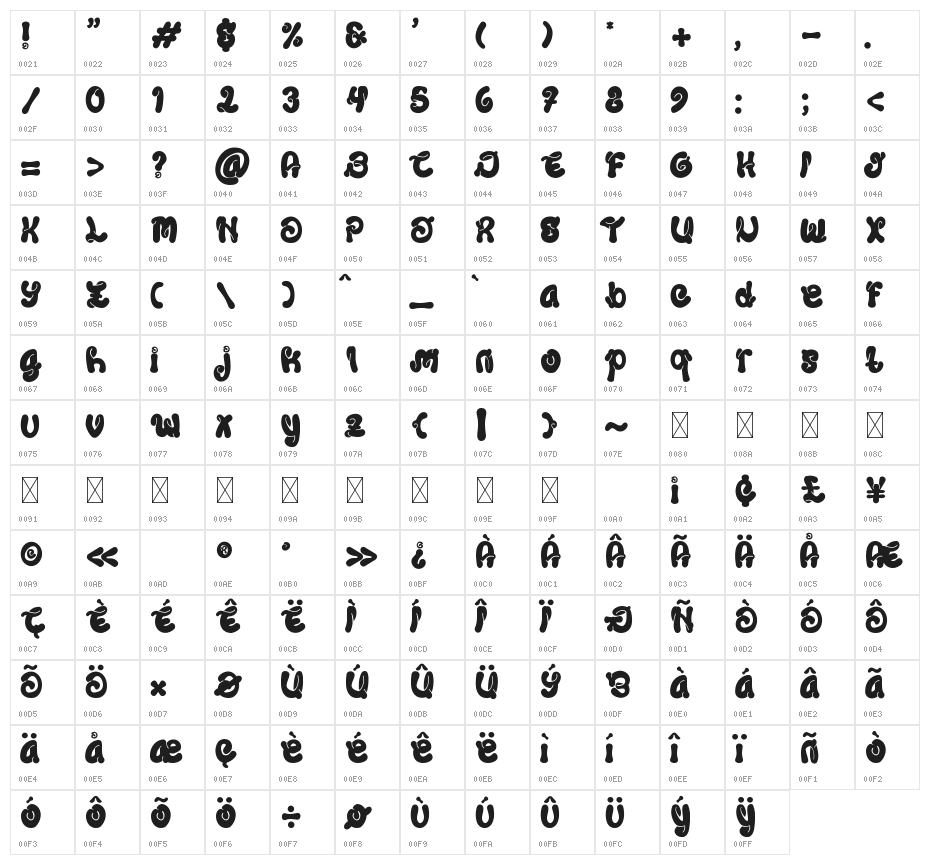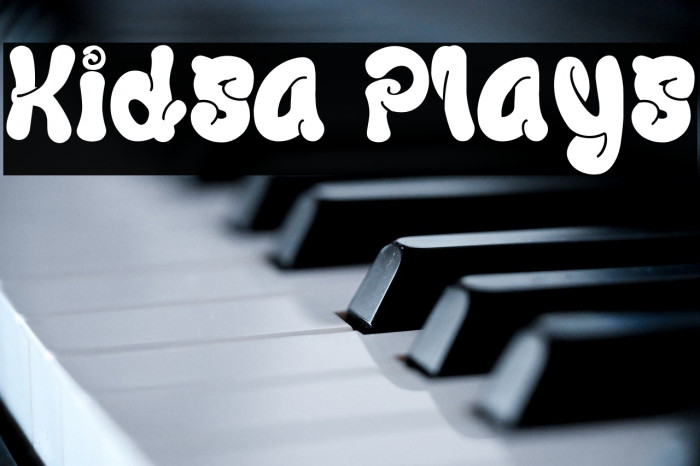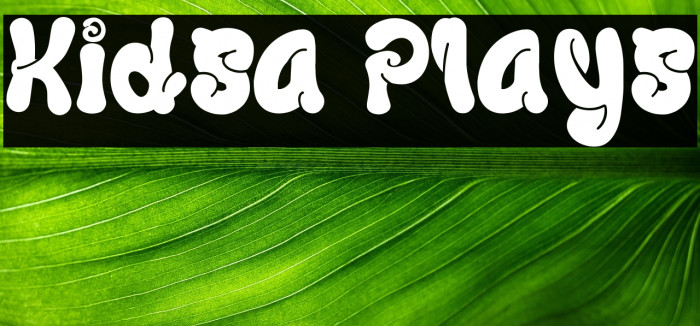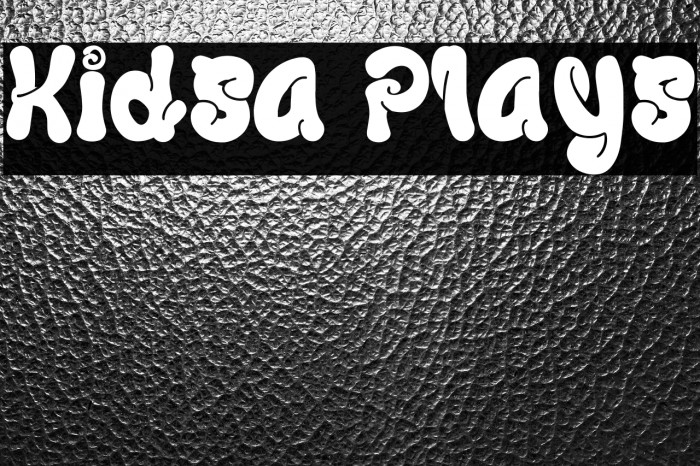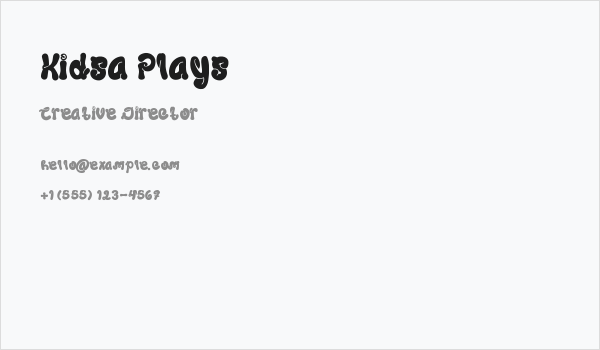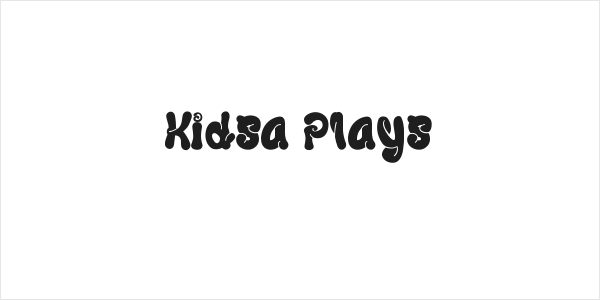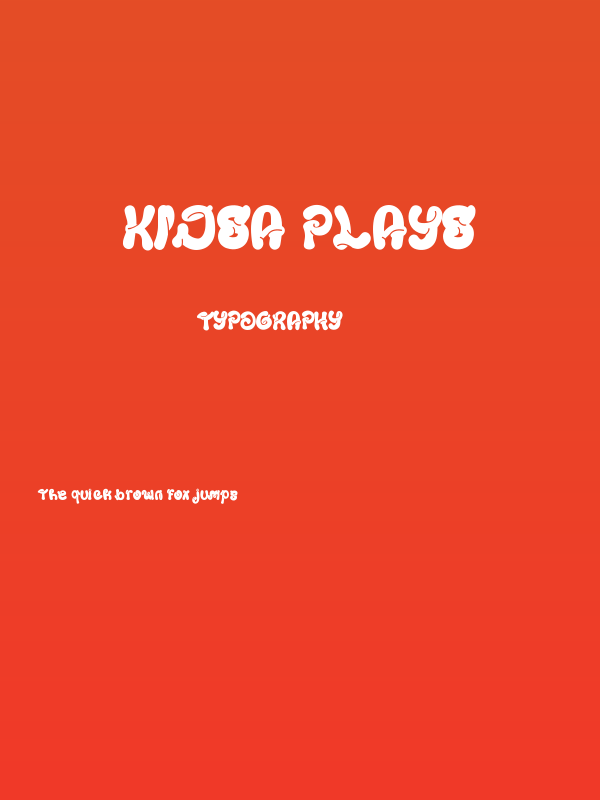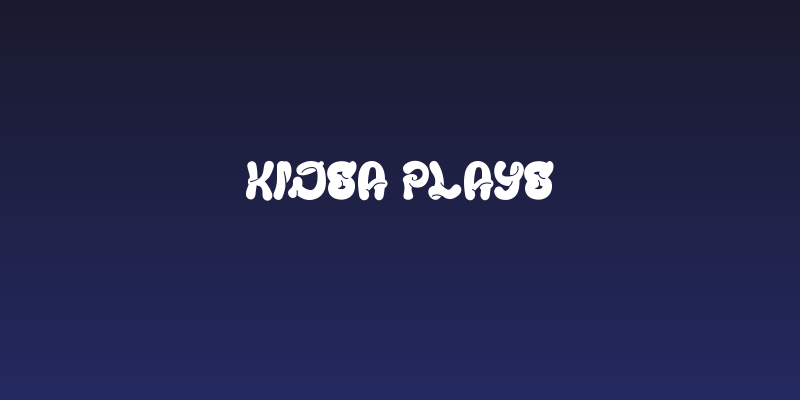
Kidsa Plays Font
Kidsa Plays Description
This playful and whimsical font features bold, rounded characters with a bubbly appearance. Each letter is crafted with a sense of fun and creativity, making it ideal for projects that require a lively and energetic feel. The characters are thick and well-defined, with a consistent stroke width that adds to the font's boldness. The unique design of each letter gives it a distinctive personality, making it stand out in any design. The numbers and special characters follow the same playful style, ensuring a cohesive look across all text elements.